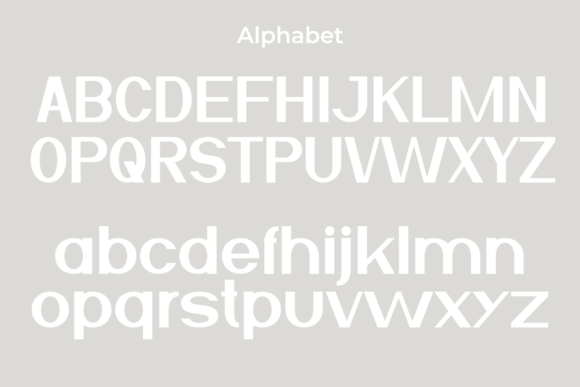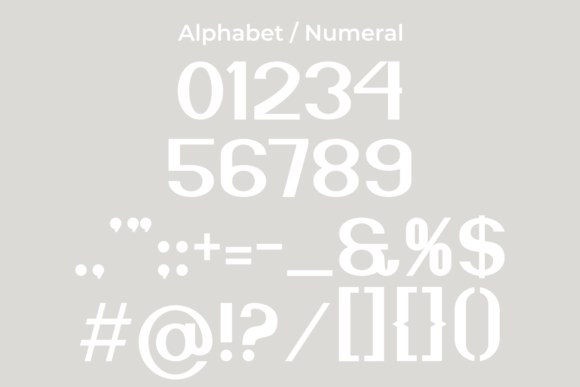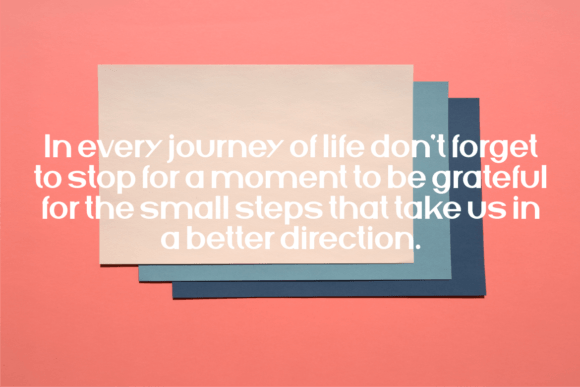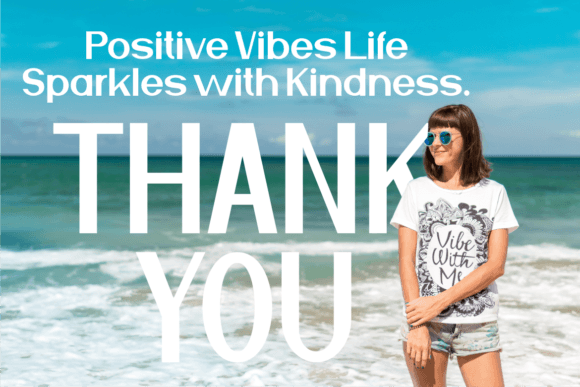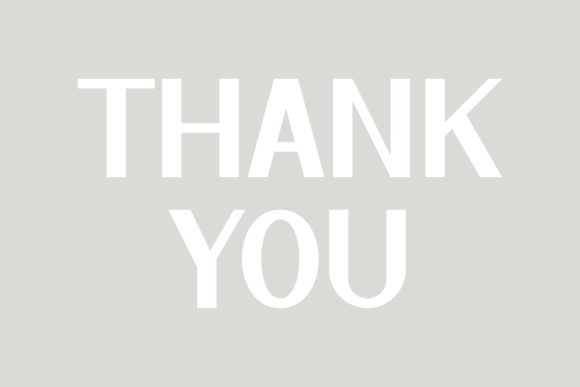
Introduction to Mogate Font
Have you ever stumbled upon a font that sparks creativity and makes your design projects shine? For designers, finding the perfect font can be a game-changer. It’s the difference between a good design and an extraordinary one. And that’s exactly what the Mogate Font offers – a unique and authentic modern sans serif font that elevates any creative project.
With its versatility and flexibility, the Mogate Font is perfect for a wide range of applications, from branding projects to blog headers, posters, and even digital designs. Whether you’re working on a logo, invitation, or stationery, this font is sure to impress. And the best part? It’s available for a free download, making it a valuable design resource for any creative professional.
Key Features of Mogate Font
- High-quality, professional font suitable for various creative projects, including graphic design, digital art, and web design.
- Designed with a transparent background, allowing for seamless integration with any design or image.
- High-resolution font, suitable for use at various sizes and resolutions, including 300 DPI and above.
- Unique, modern design that sets it apart from other fonts, making it an excellent choice for designers seeking a distinctive look.
- Easy to use and customize, making it an ideal choice for designers working on a wide range of creative projects.
Honest Review: Mogate Font
I recently had the chance to work with the Mogate Font, and I must say it’s been a game-changer for my creative project. The font’s unique blend of modern and vintage elements adds a touch of sophistication to any design.
One of the standout features of the Mogate Font is its high quality and versatility. It’s perfect for use in a variety of design contexts, from logos to digital displays. I particularly appreciate the transparent background option, which allows for seamless integration into any design environment.
- Transparent background option for seamless integration
- Easy to use and customize
- ⚠️ Limited character set options, which may be a concern for those who need to use specific characters
- ⚠️ Some users may find the font’s vintage elements too bold or overpowering
Overall, I’m really impressed with the Mogate Font. Its unique design and high-quality construction make it a valuable addition to any designer’s toolkit. While it may have a few limitations, it’s definitely worth considering for your next creative project.
Mogate Font
Tips for Getting the Most Out of Mogate Font
Use the Mogate Font in combination with other design elements to create visually appealing graphics and designs. Experiment with different font sizes and styles to find the perfect balance for your creative project. With the Mogate Font, you can create high-quality designs with ease.
The Mogate Font is perfect for creating graphics and designs for a variety of purposes, including presentations, reports, and marketing materials. It’s also great for use in social media graphics and website design. With its high-quality design and transparent background, the Mogate Font is a valuable design resource for any creative project.